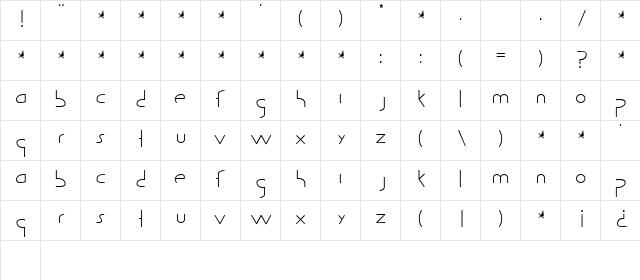
Guild of Professional Actors Regular
| Foundry | [ Divide By Zero ] |
| Designer | Tom Murphy 7 |
Design Context for Guild of Professional Actors Typeface
Guild of Professional Actors offers clean, dependable letterforms without strong stylistic allegiance, making it a practical choice for designers who need flexibility.